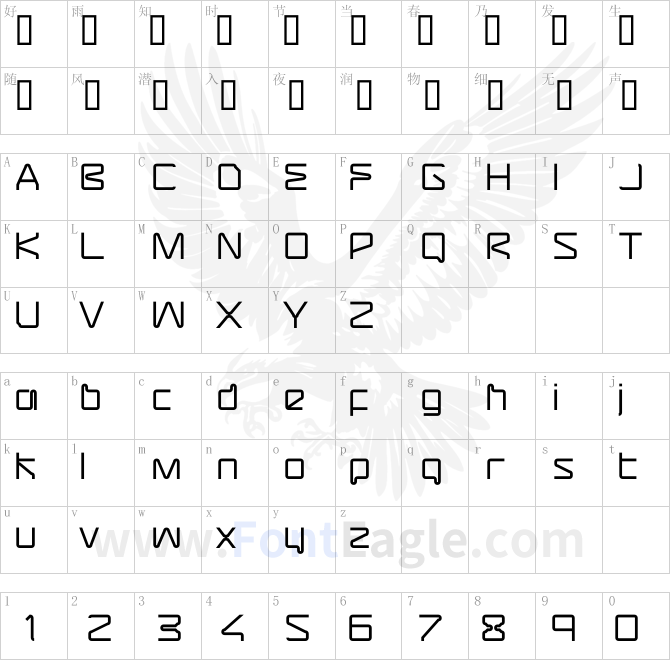
- Font name:AssemblerRegular
- Font Full Name:AssemblerRegular
- Font Copyright:2004 T.26 Digital Type Foundry www.t26.com PSID#5134703 designer: Martin Fewell / Fewell Foundry